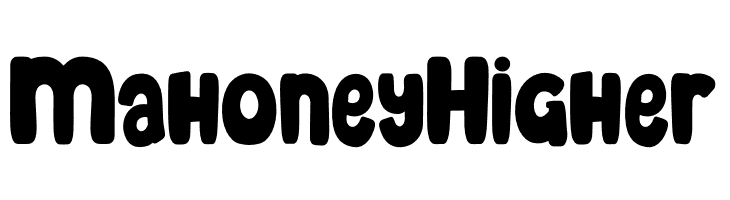
A bold, playful font with rounded edges and a chunky appearance.
A playful, hand-drawn font with a boxed, doodle-like appearance.
A whimsical and playful illustrated font with humorous characters.
A dynamic and fluid handwritten script font with expressive strokes.
A bold, playful handwritten font with rounded, consistent strokes.
A playful, ice cream-themed decorative font with bold, rounded characters.
A bold, fiery font with sharp, jagged edges and a dynamic style.
A playful, handwritten font with rounded, consistent strokes.
A clean, rounded font with a friendly and approachable style.